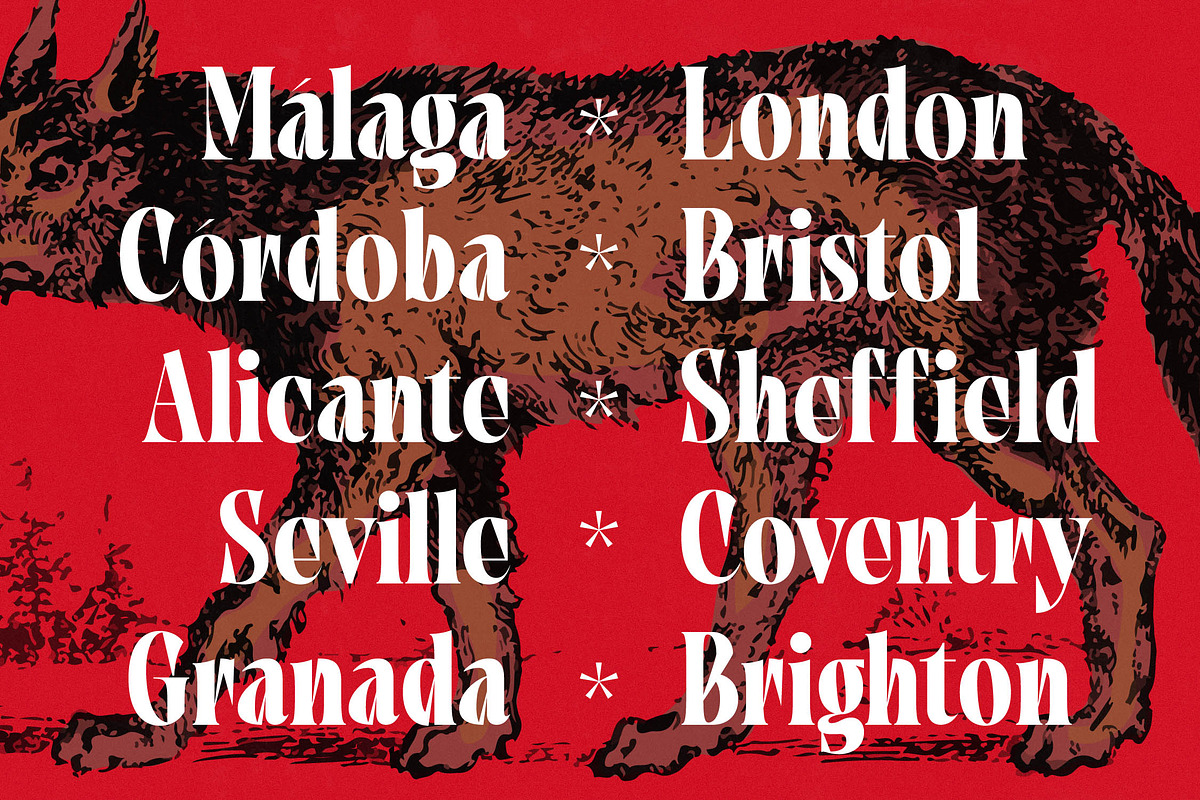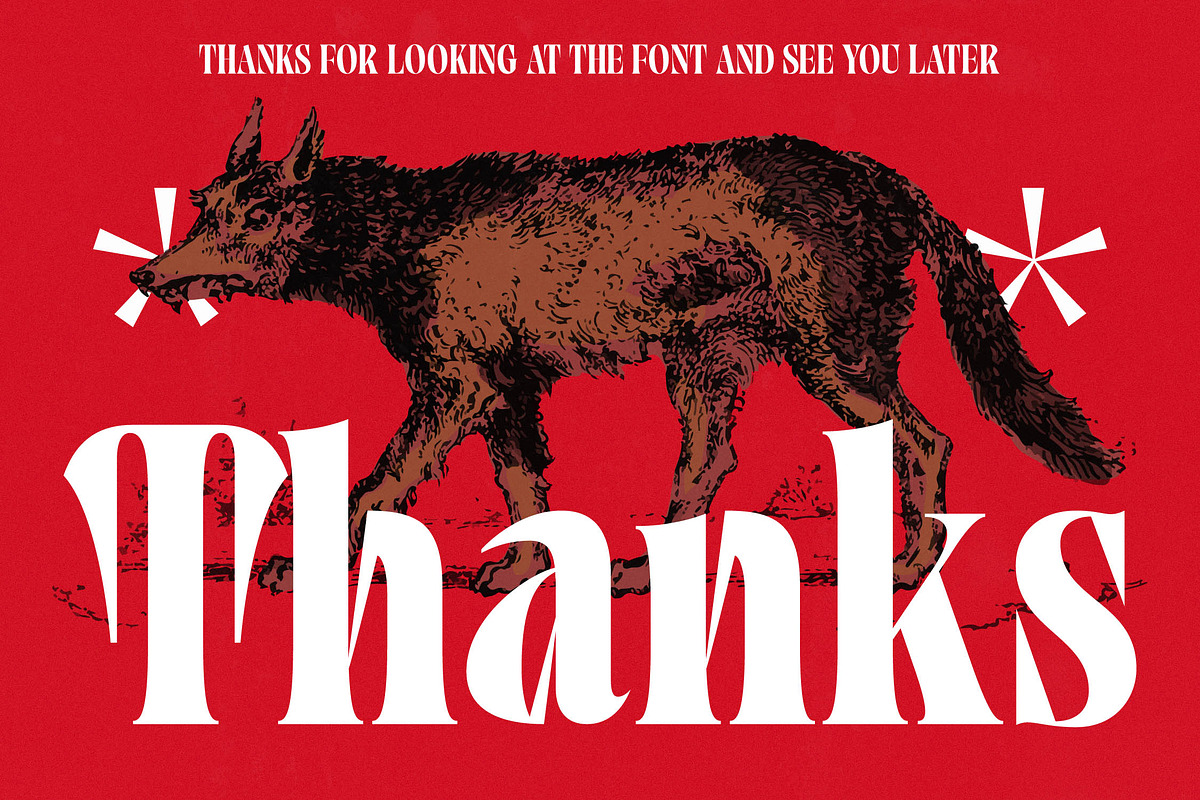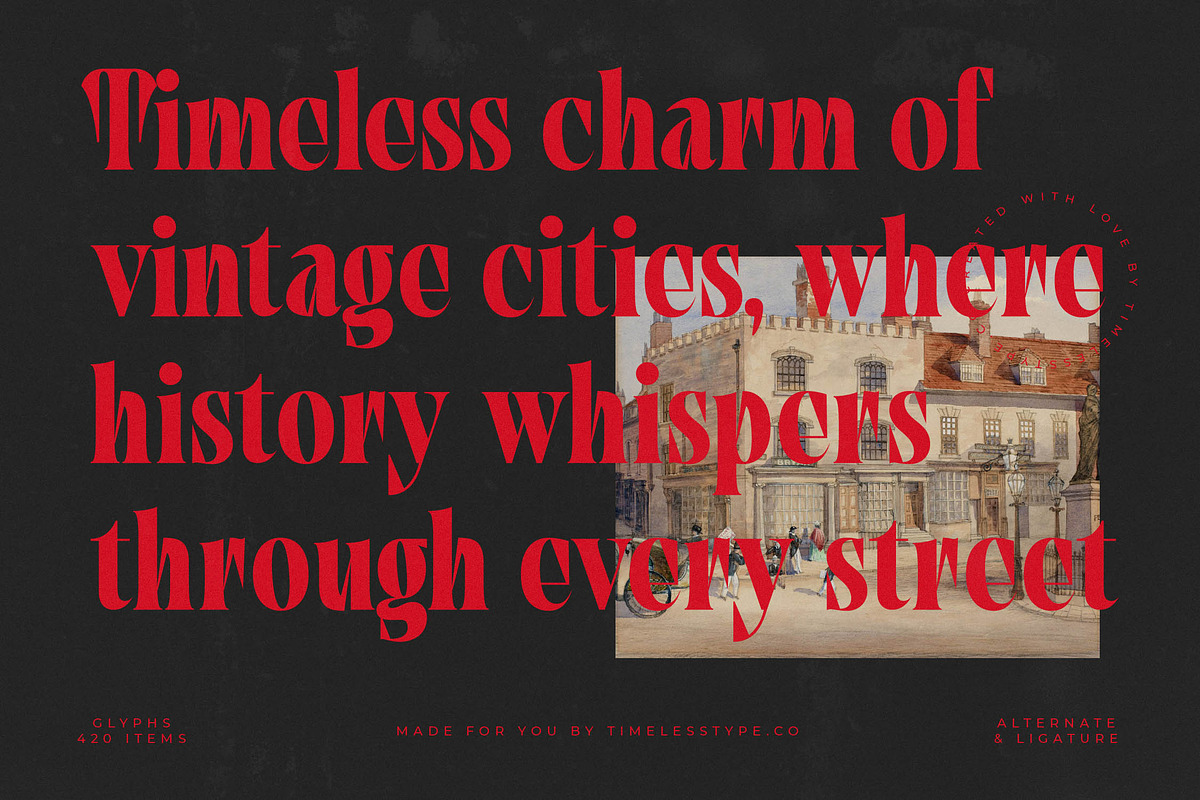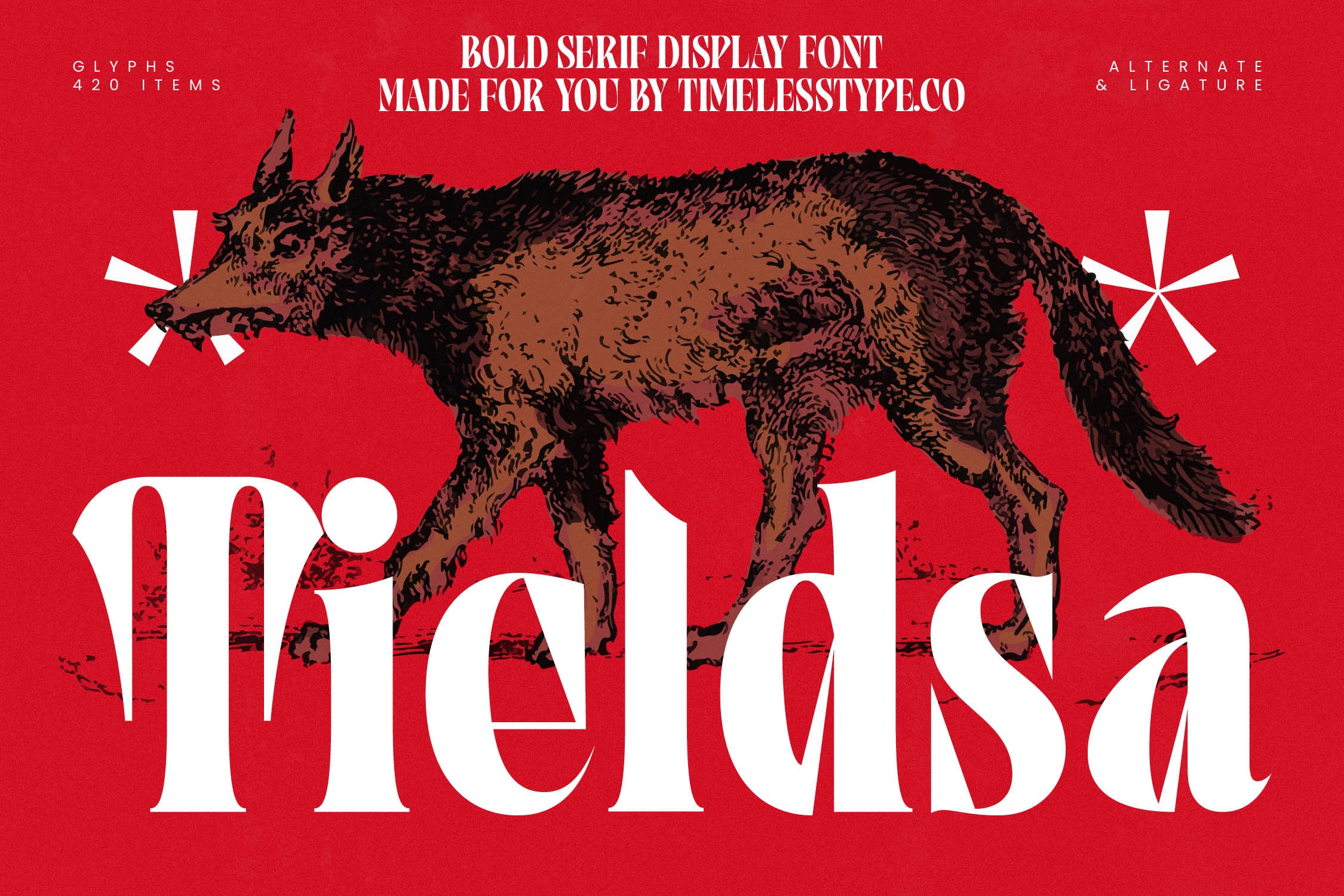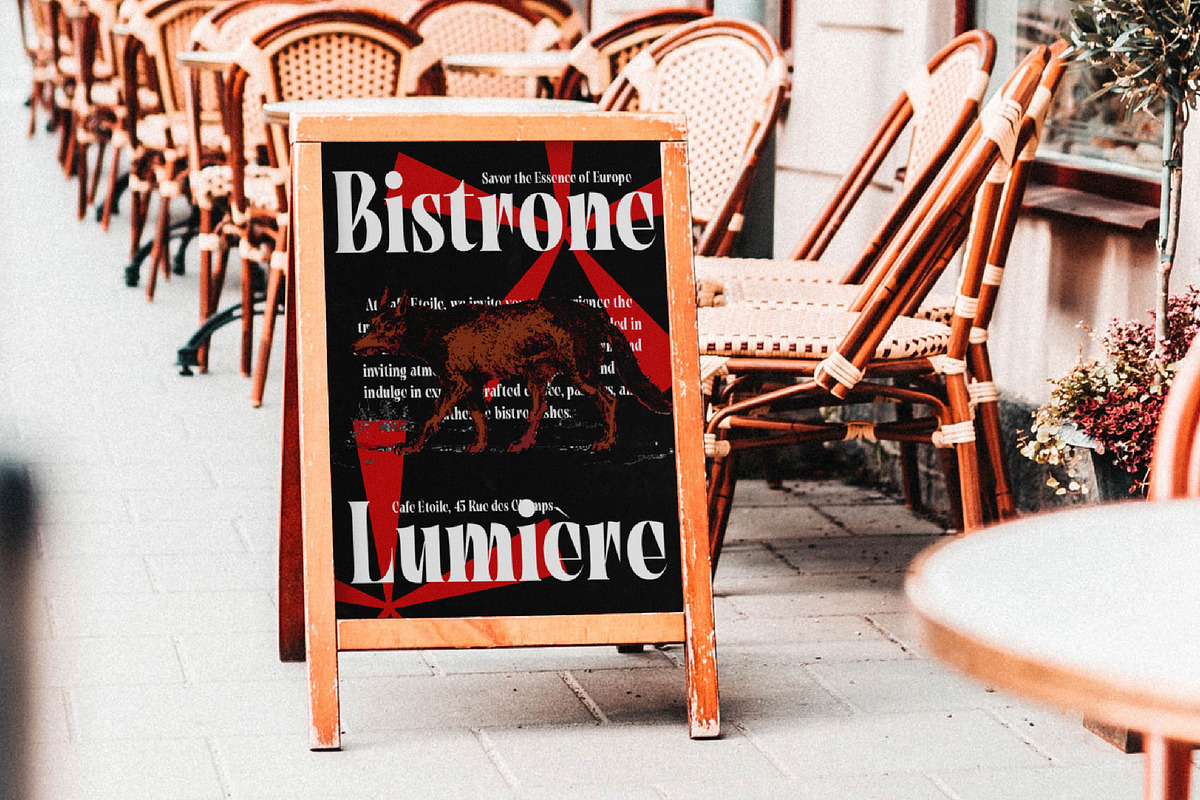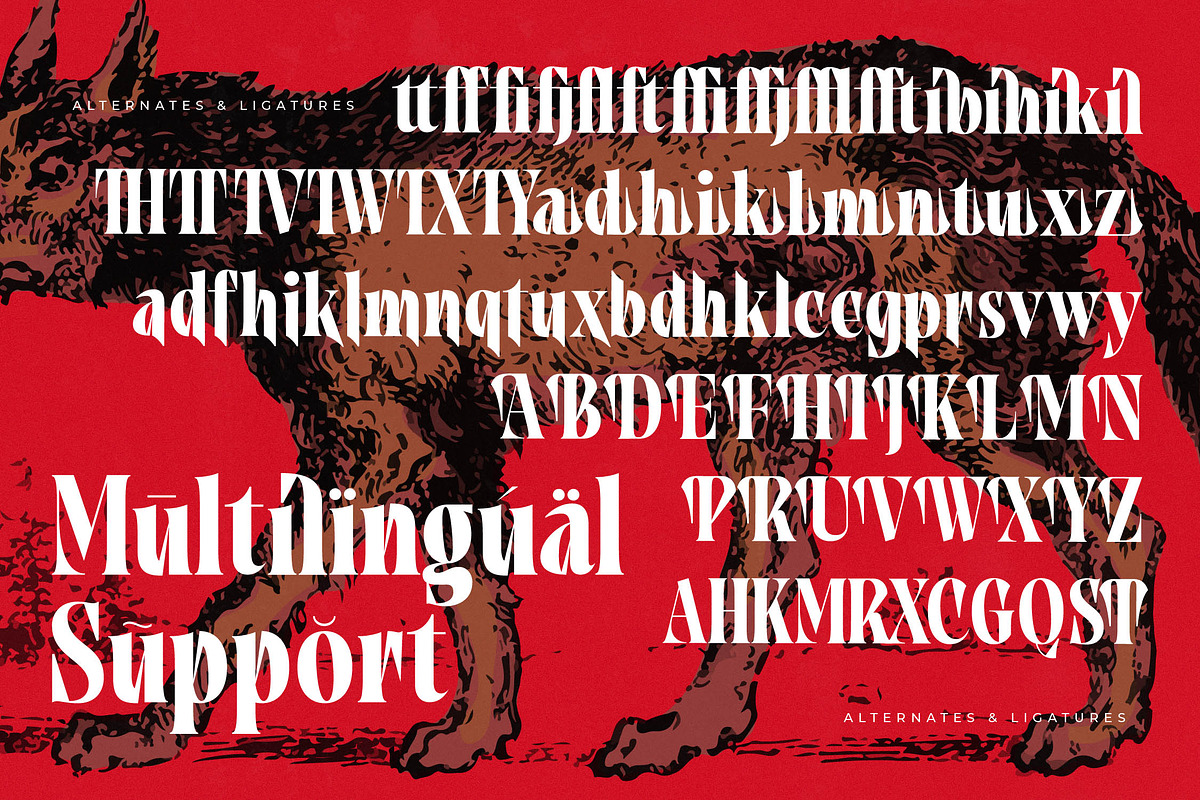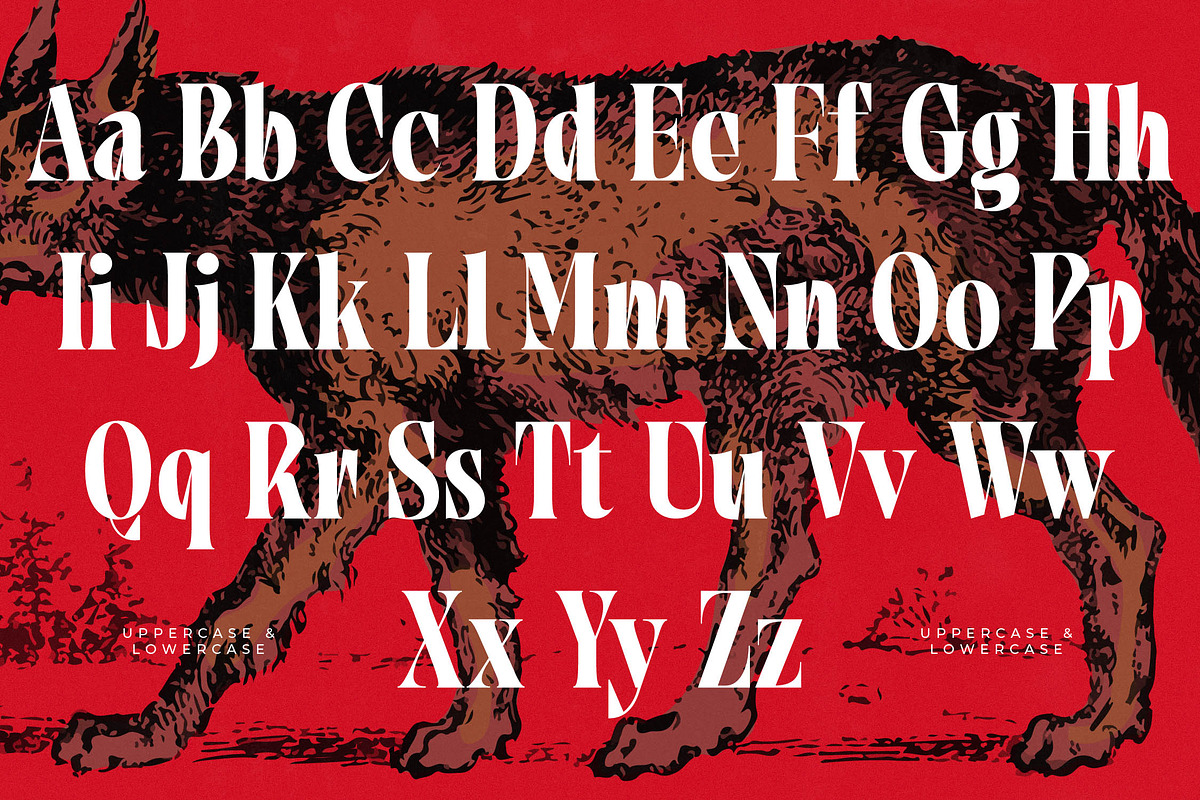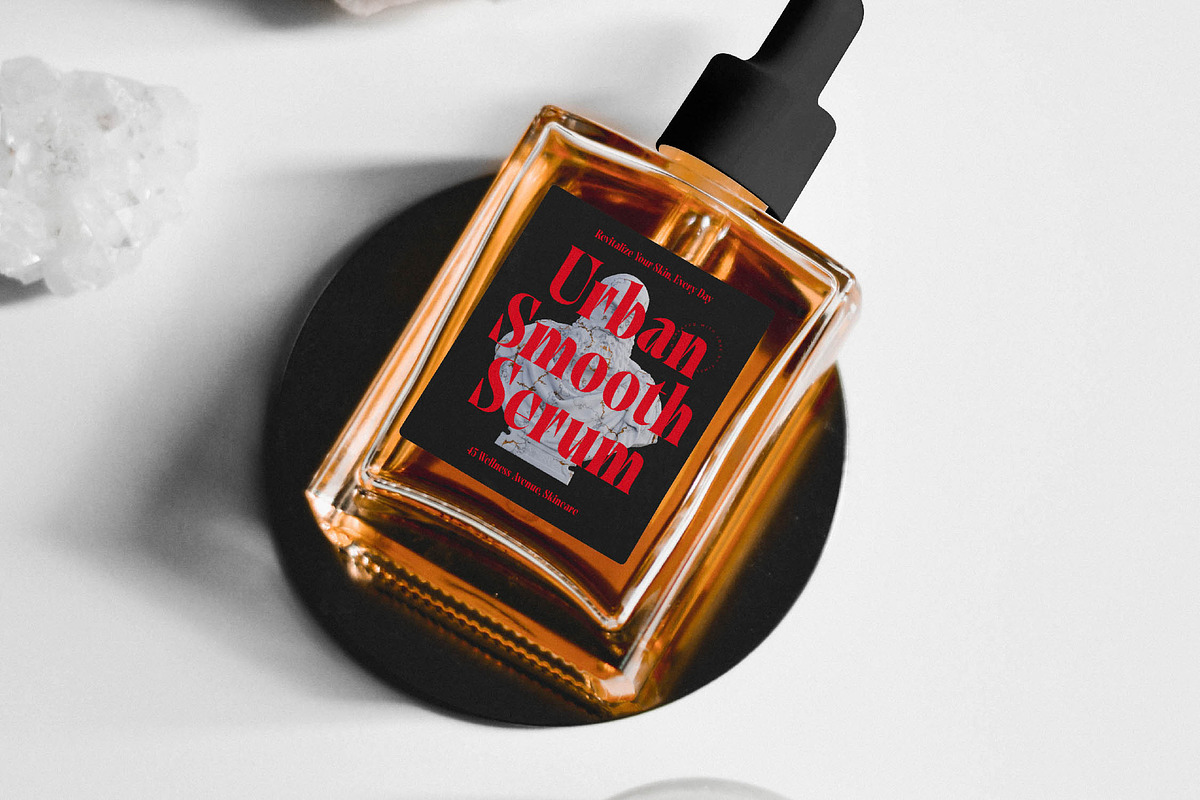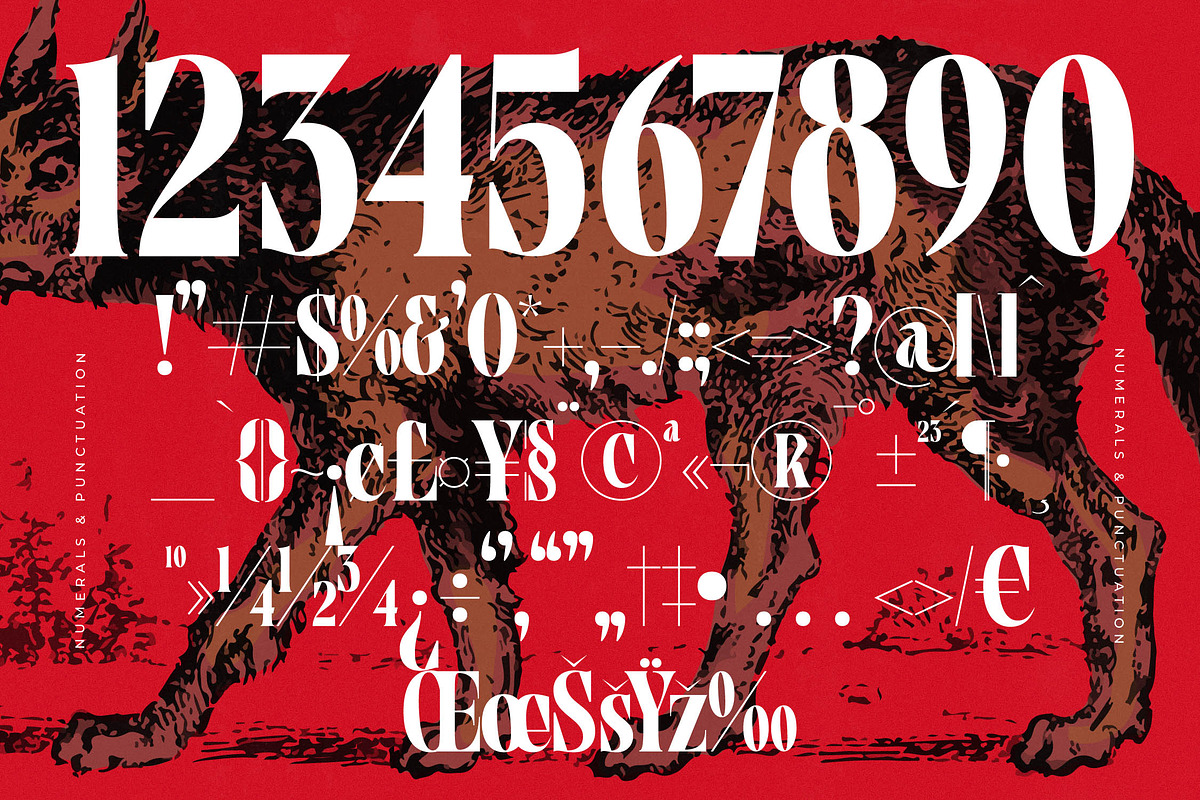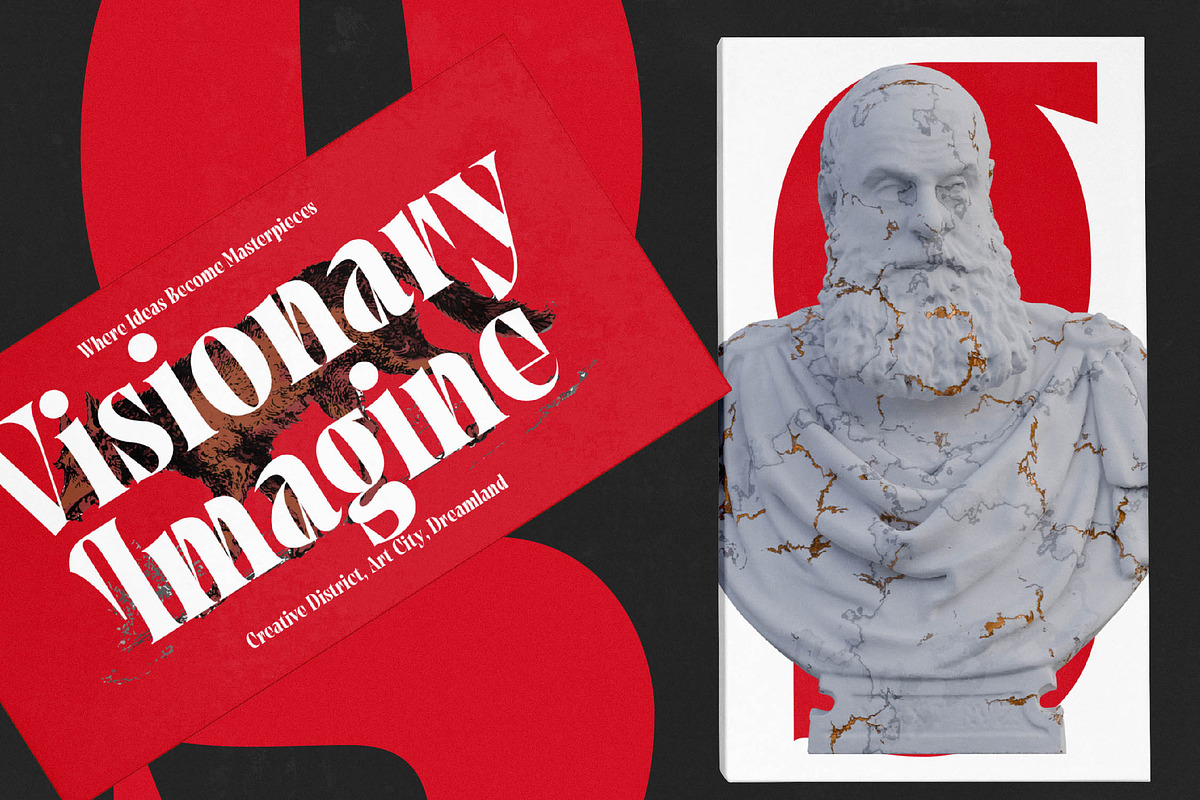
Tieldsa Bold Serif Display Font
Elevate your visual narrative with Tieldsa, a typeface that captures the raw essence of power and refined elegance. It is more than just a font; it is a statement of uncompromising style for the modern creator.
Drawing inspiration from the tension between wild instinct and architectural precision, this typeface was born to bridge the gap between vintage lithography and contemporary digital aesthetics. The sharp, aggressive terminals paired with fluid curves evoke a sense of a mythical beast prowling through a high-fashion landscape.
This modern serif display commands attention with its high-contrast serif design, making it an essential tool for luxury typography. It offers a unique branding impact that feels both timeless and provocative, serving as a perfect editorial font for projects that require a sharp, sophisticated edge.
Riding the wave of the current modern serif trend, this typeface fits perfectly into the world of editorial display fonts where personality is paramount. It represents the pinnacle of character-driven typography, allowing designers to break away from sterile minimalism in favor of expressive, high-impact visuals.
Ideally suited for high-end logo design and comprehensive branding systems, this typeface shines in packaging and fashion layouts. Whether you are crafting a boutique wedding suite or a cutting-edge editorial spread, its versatile nature ensures your message is delivered with prestige.
Unlock a world of creative possibilities with a rich set of ligatures and unique alternates that allow for custom-tailored letterforms. This font also includes beautiful swashes and full multilingual support with over 420 glyphs and international characters to ensure your designs resonate across the globe.
- Ligature 188 Alternate 22